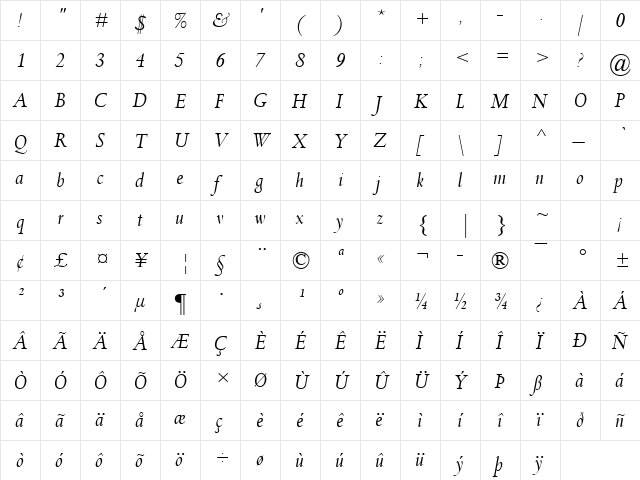
Spectrum MT Italic
| Foundry | Agfa Monotype Corporation |
Design Context for Spectrum MT Typeface
Spectrum MT takes a measured approach to typography — its balanced proportions and neutral character make it a reliable workhorse for both digital and print work. The slanted form adds forward momentum and visual energy.